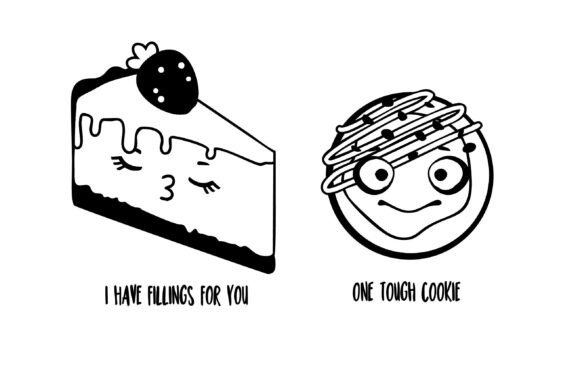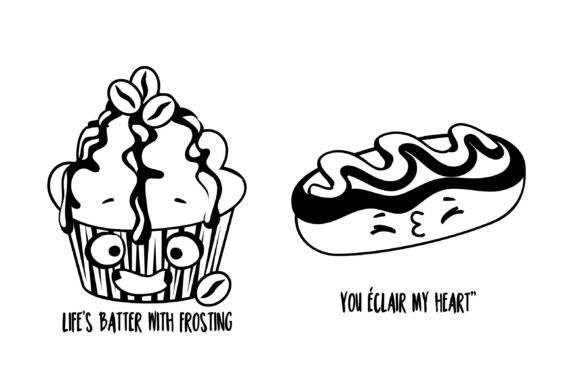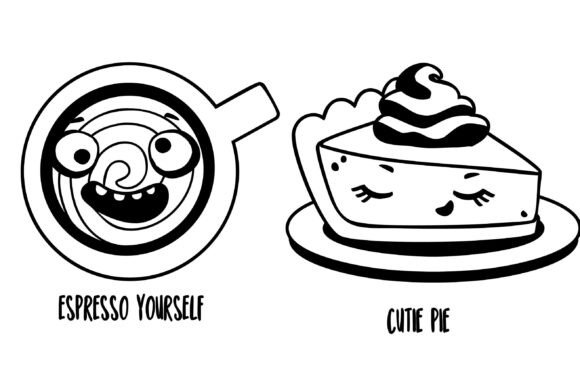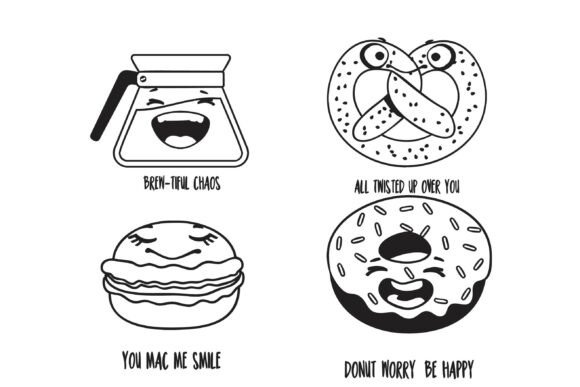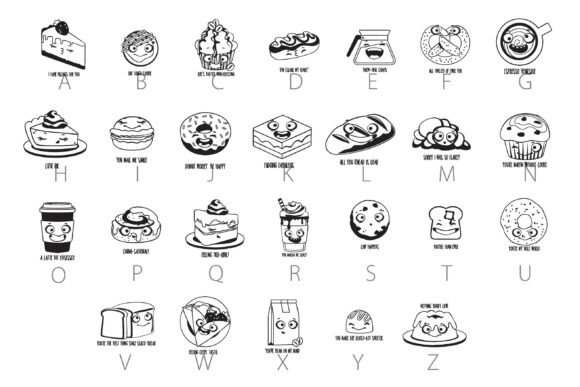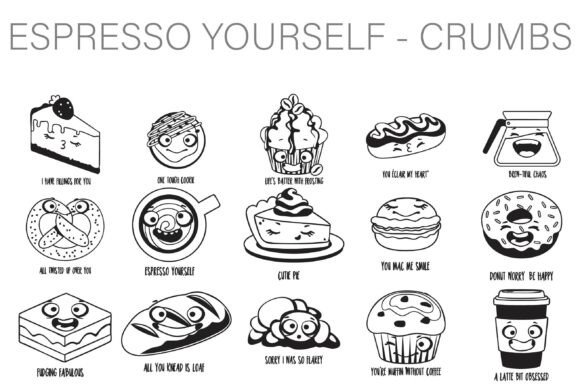
Espresso Yourself Crumbs Dingbats Font: A Deliciously Whimsical Bakery Mascot Collection
Are you a designer or crafter looking for a unique and playful way to add some personality to your bakery branding, menu designs, or confectionery labels? Look no further than Espresso Yourself – Crumbs, a charming collection of bakery-themed mascot dingbats that’s sure to satisfy your creative cravings.
A Sweet and Salty Cast of Characters
Espresso Yourself – Crumbs features a vibrant cast of characters that are as sweet as they are salty. From pun-loving pretzels to shy slices of pie, and cheerful donuts, each mascot is carefully crafted to bring a smile to your face. But what really sets this collection apart is the accompanying witty food-themed quotes that add an extra layer of whimsy and fun.
Punny-Patisserie Soul
At the heart of Espresso Yourself – Crumbs is a “punny-patisserie” soul that is sure to delight designers and crafters who appreciate a good pun. The collection’s clean, bold line work and playful character designs make it the perfect choice for adding a touch of personality to your bakery branding, boutique pastry shop menus, artisanal confectionery labels, and high-impact digital headers.
Perfect for Independent Bakeries and Boutiques
Espresso Yourself – Crumbs is the premier choice for independent bakery branding, thanks to its unique and eye-catching designs. Whether you’re looking to create a custom logo, design a menu, or develop a brand identity, this collection of dingbats has everything you need to make your bakery stand out from the crowd.
Key Features of Espresso Yourself Crumbs Dingbats Font
- Whimsical bakery-themed mascot dingbats: A collection of charming characters, including pretzels, pie, donuts, and more
- Witty food-themed quotes: Add an extra layer of fun and personality to your designs
- Clean, bold line work: Easy to read and visually appealing
- Punny-patisserie soul: A playful and lighthearted approach to bakery branding
- Perfect for independent bakeries and boutiques: Stand out from the crowd with unique and eye-catching designs
Design and Crafting Inspiration
Espresso Yourself – Crumbs is the perfect inspiration for designers and crafters looking to add a touch of whimsy to their work. Here are a few ideas to get you started:
- Use the dingbats to create custom bakery logos or branding materials
- Add a playful touch to your menu designs or food labels
- Develop a unique and eye-catching social media presence for your bakery or food business
- Create custom packaging or gift tags for your baked goods
Espresso Yourself – Crumbs is a deliciously whimsical collection of bakery-themed mascot dingbats that’s sure to satisfy your creative cravings. With its unique cast of characters, witty food-themed quotes, and clean, bold line work, this collection is the perfect choice for designers and crafters looking to add a touch of personality to their bakery branding, menu designs, or confectionery labels. So why not treat yourself to a burst of creativity and get your hands on Espresso Yourself – Crumbs today?